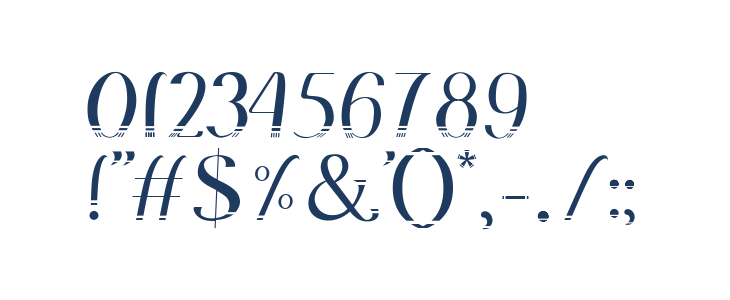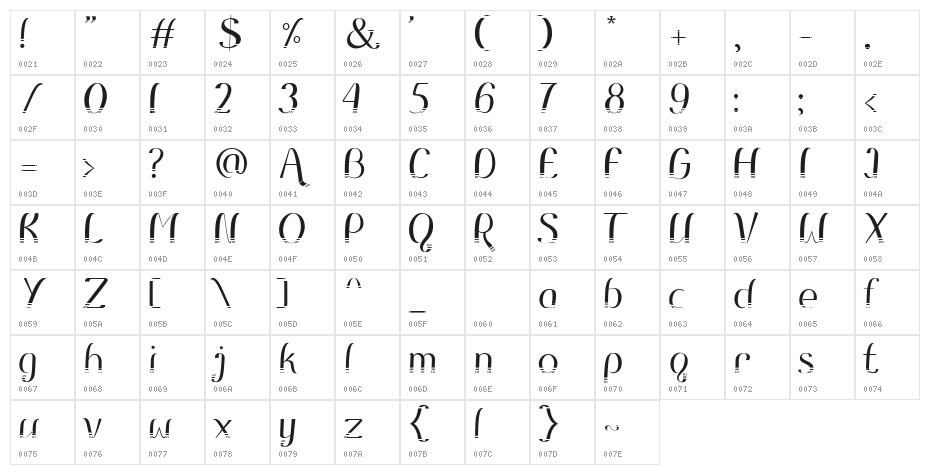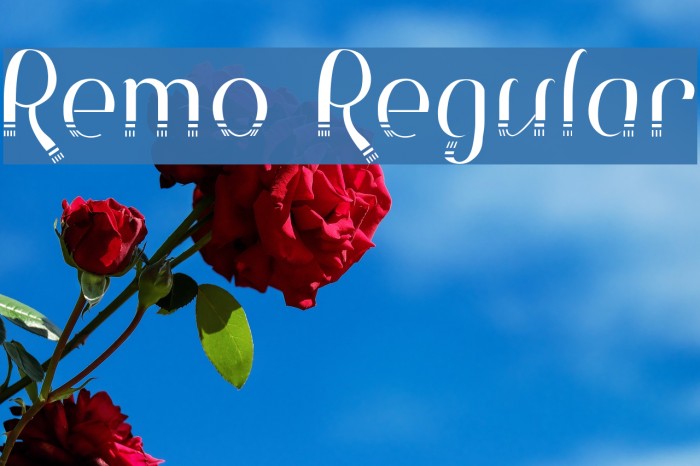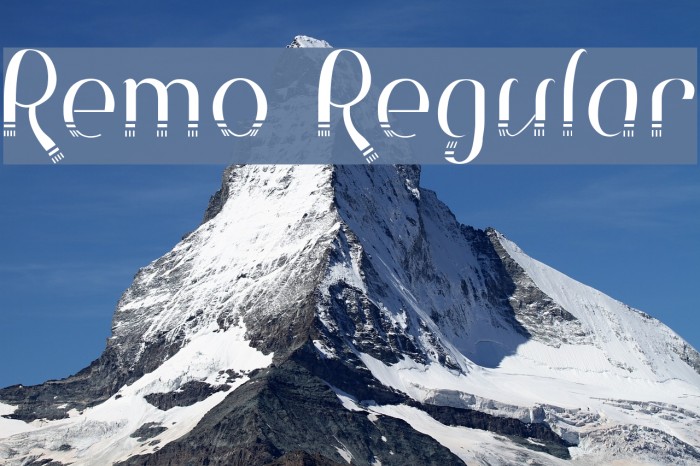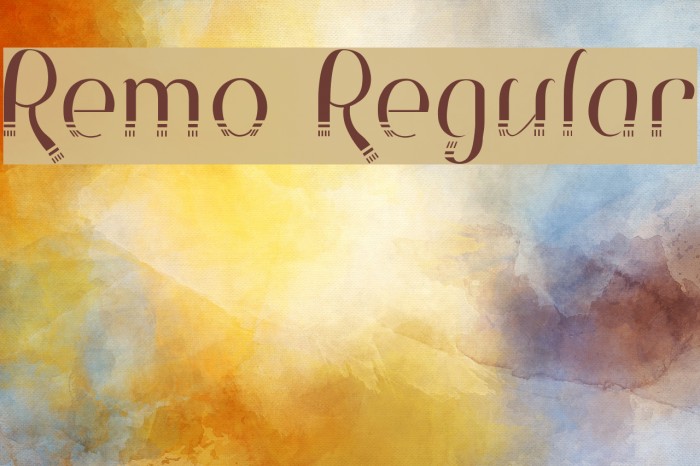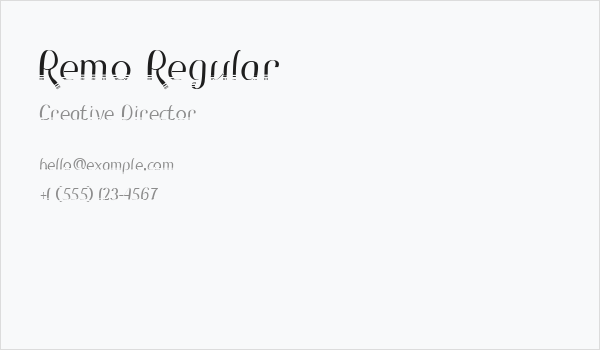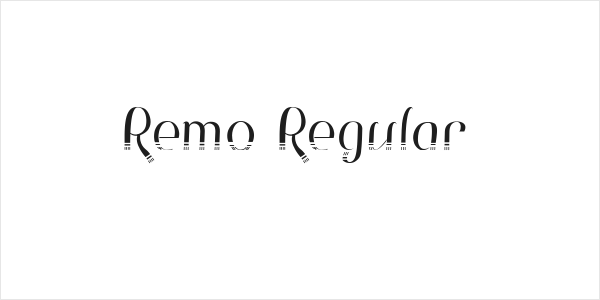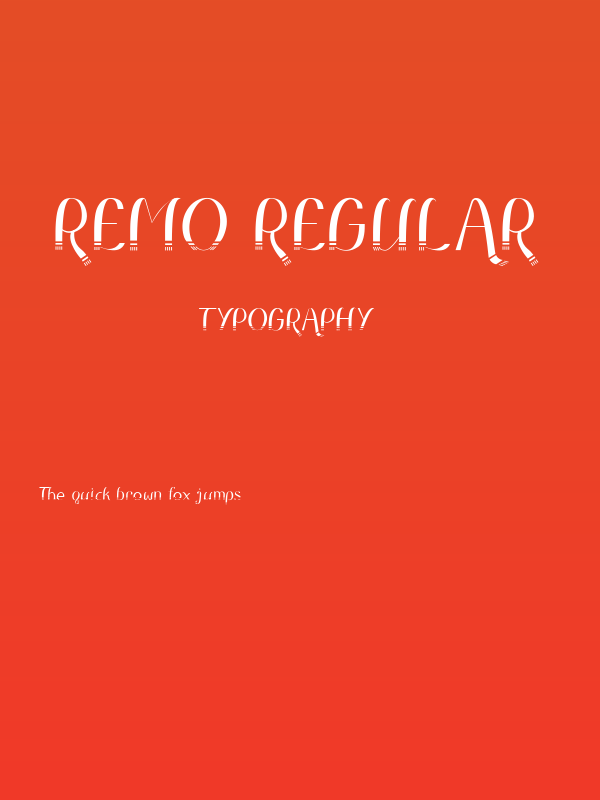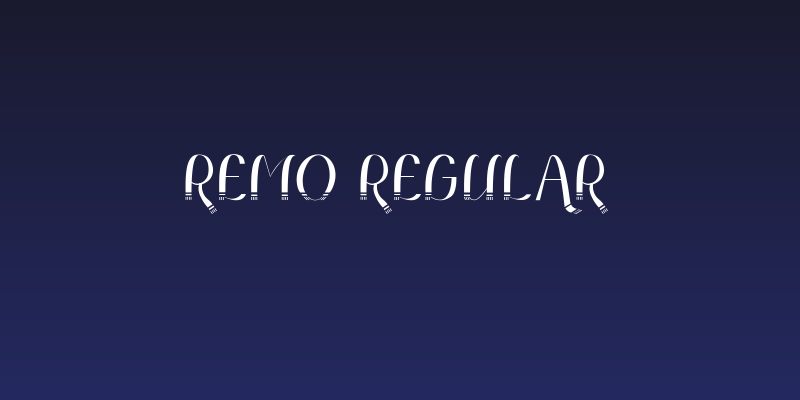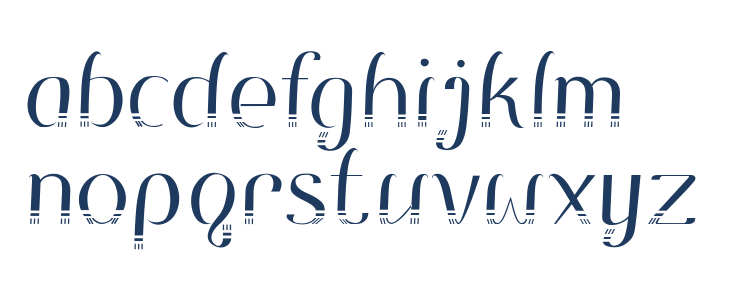
Remo Regular Font
Remo Regular Description
This font features a unique blend of modern and decorative elements, characterized by its distinct cut-out sections within each letterform. The uppercase and lowercase letters maintain a consistent style, with sharp angles and smooth curves that create a dynamic visual rhythm. The numerals and special characters follow the same design principles, ensuring uniformity across all glyphs. The font's playful yet sophisticated appearance makes it suitable for creative projects that require a touch of elegance and innovation.